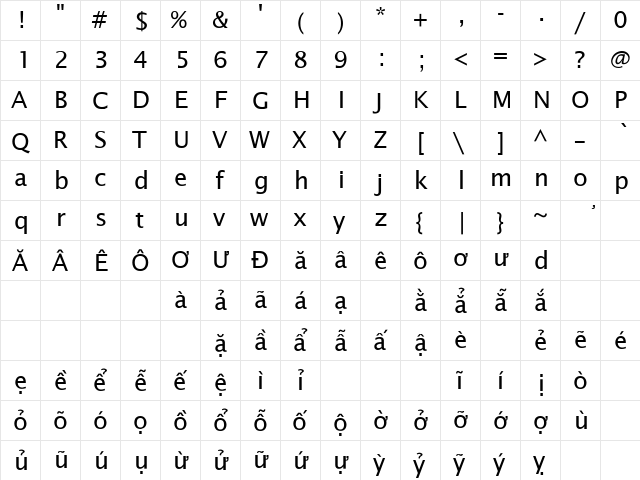
.VnLucida sans Regular
Design Context for .VnLucida sans Typeface
.VnLucida sans is a composed and adaptable typeface that performs quietly and consistently across a wide range of design contexts.